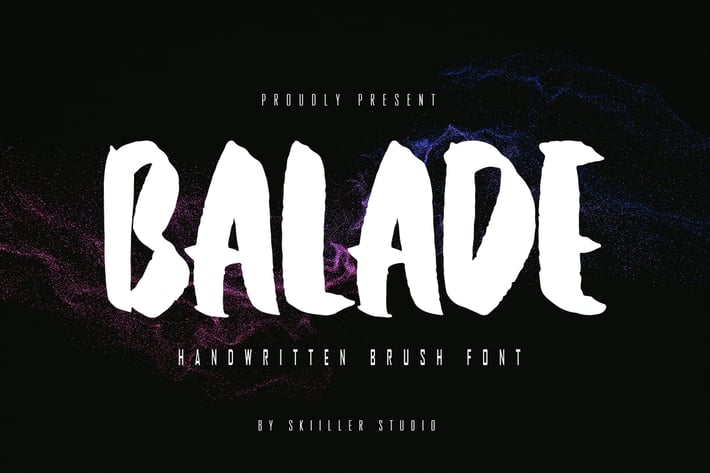
Balade - Handwritten Brush Font
Balade was inspired by the typography of natural brushes. Written in quick motion using a brush pen, it's a bit dry and looks realistic. It is suitable for commercial needs or magazine fashion design, offer logos, product packaging, headlines, posters, merchandise, social media & other greeting cards.
+ Basic Latin Language Support (AÀÁÂÃÄÅCÇDÐEÈÉÊËIÌÍÎÏÑOØÒÓÔÕÖUÙÜÚÛWYÝŸÆß )